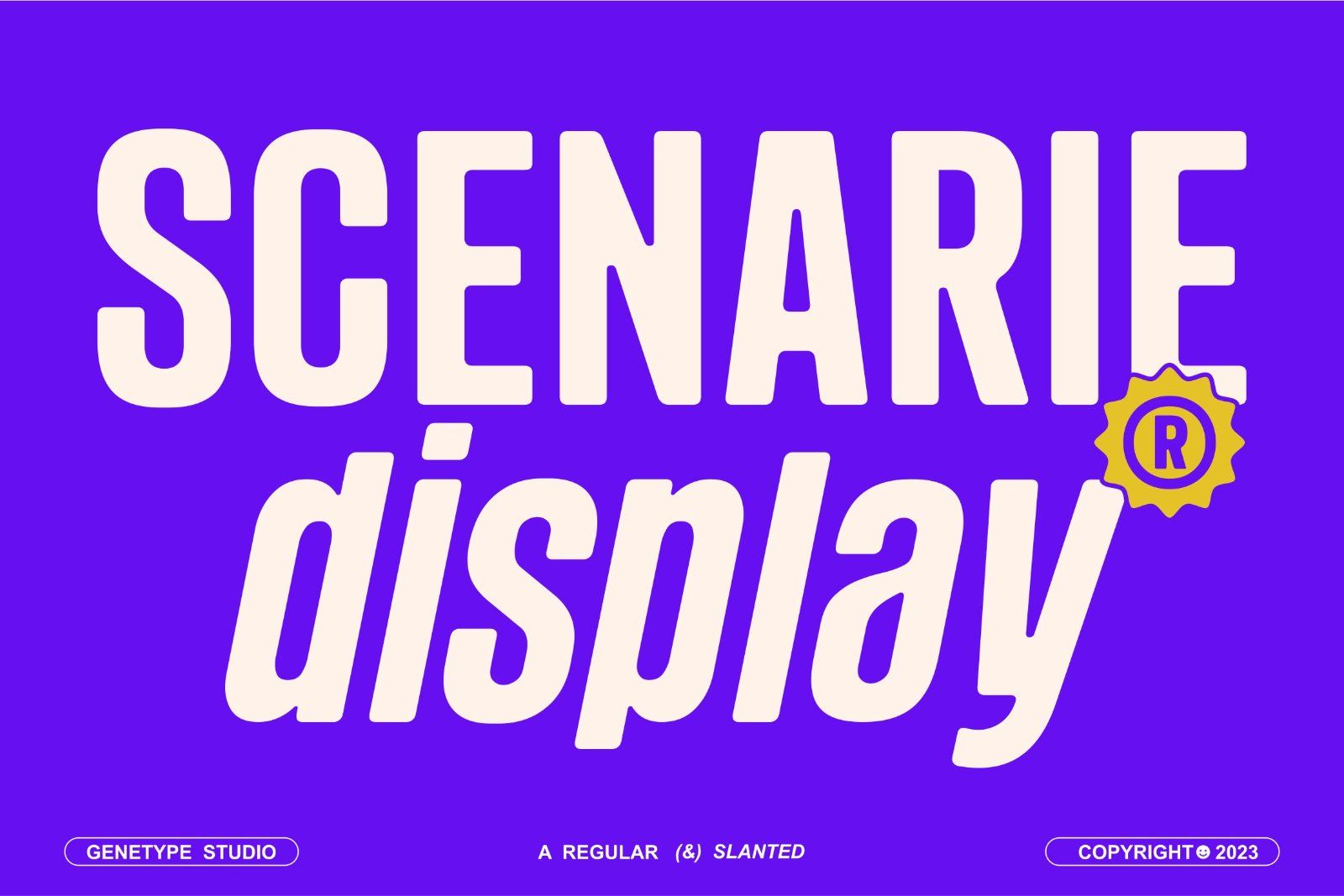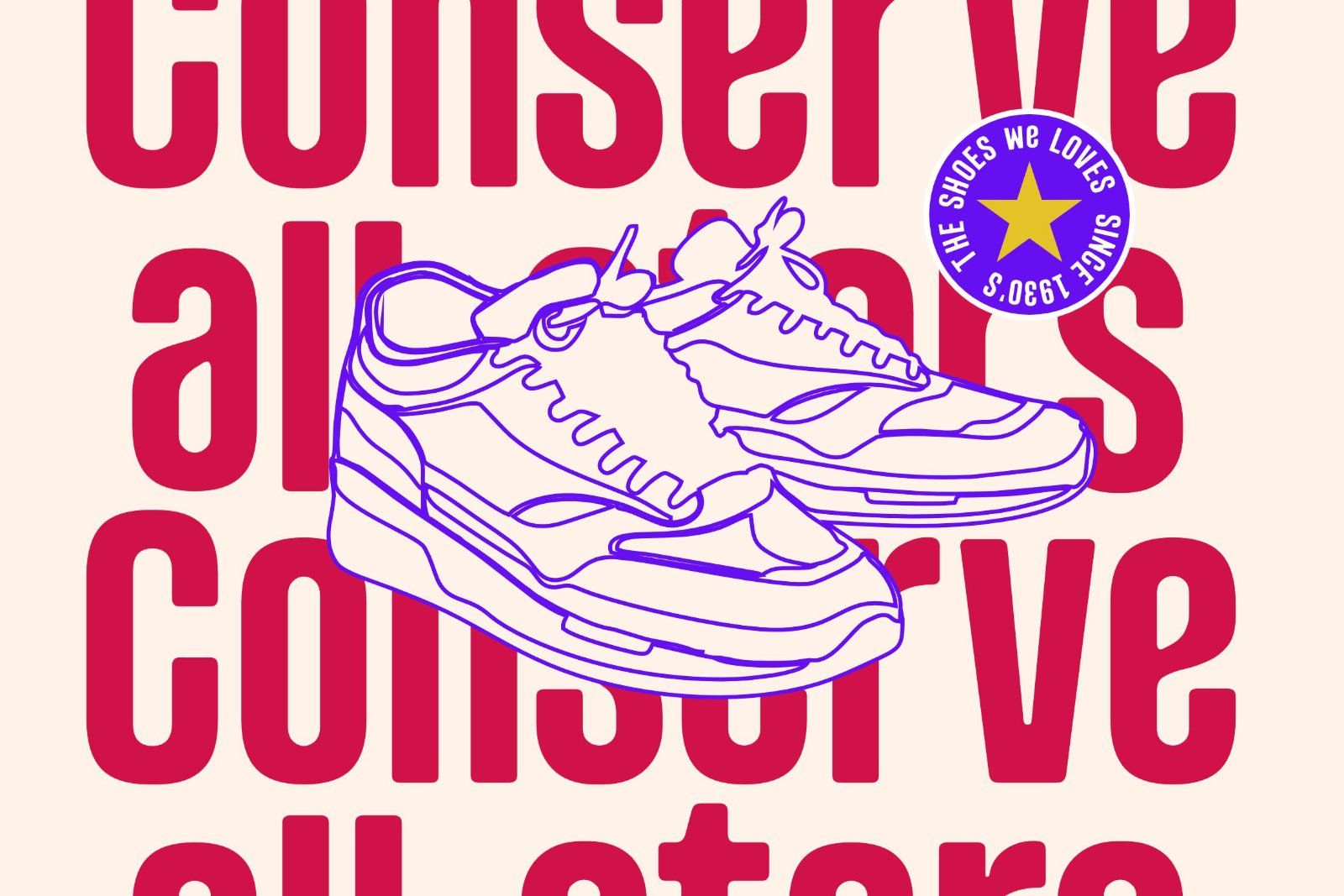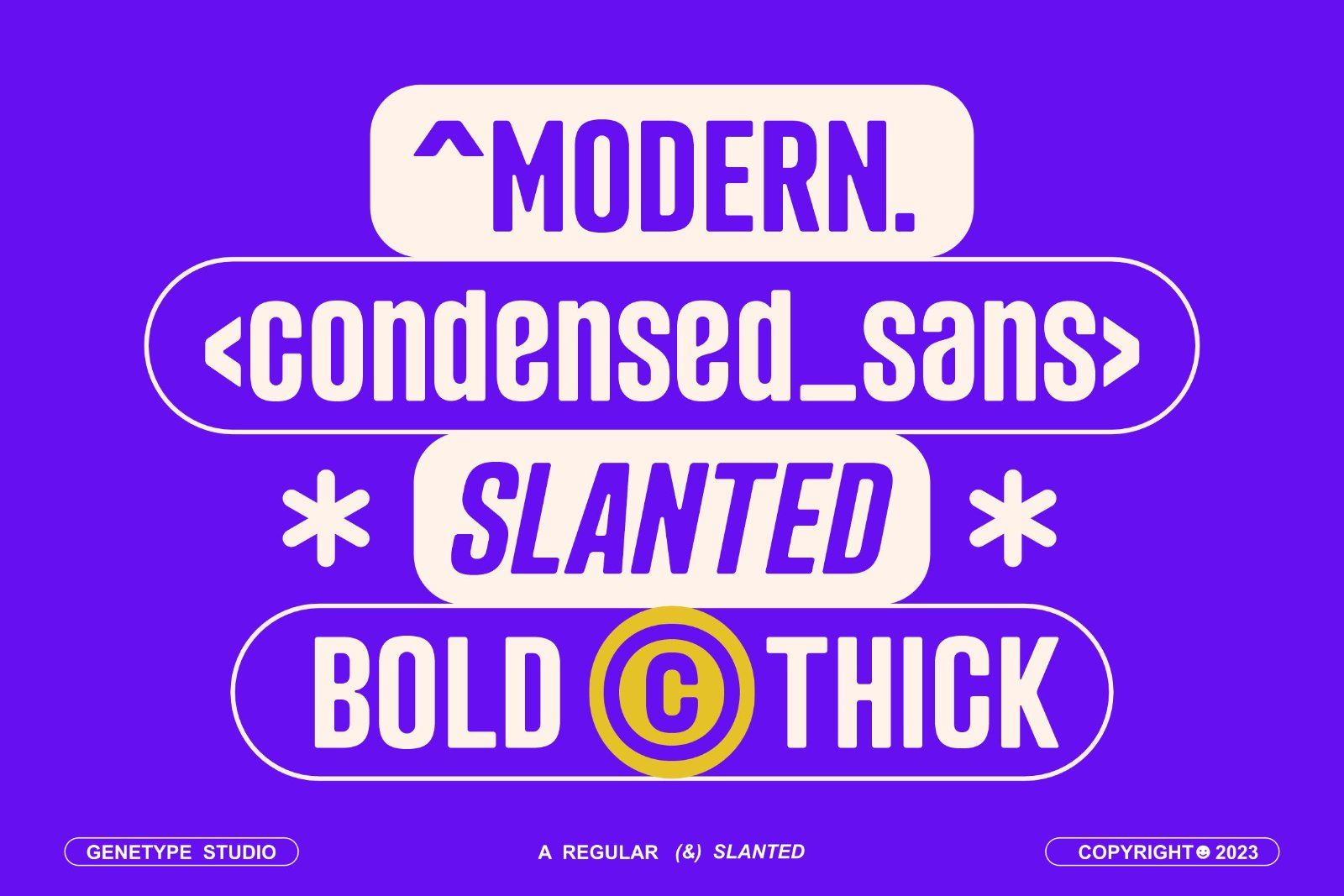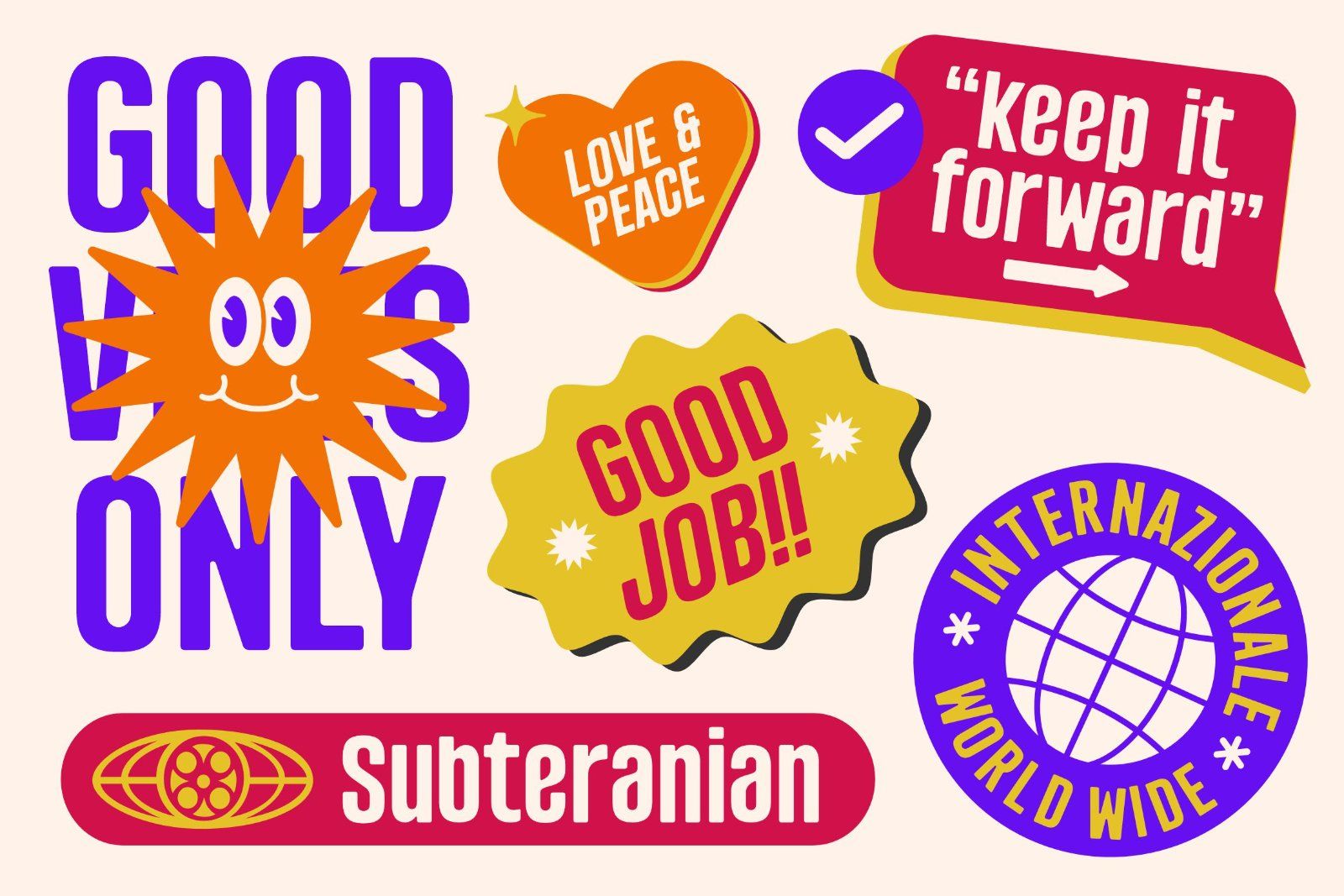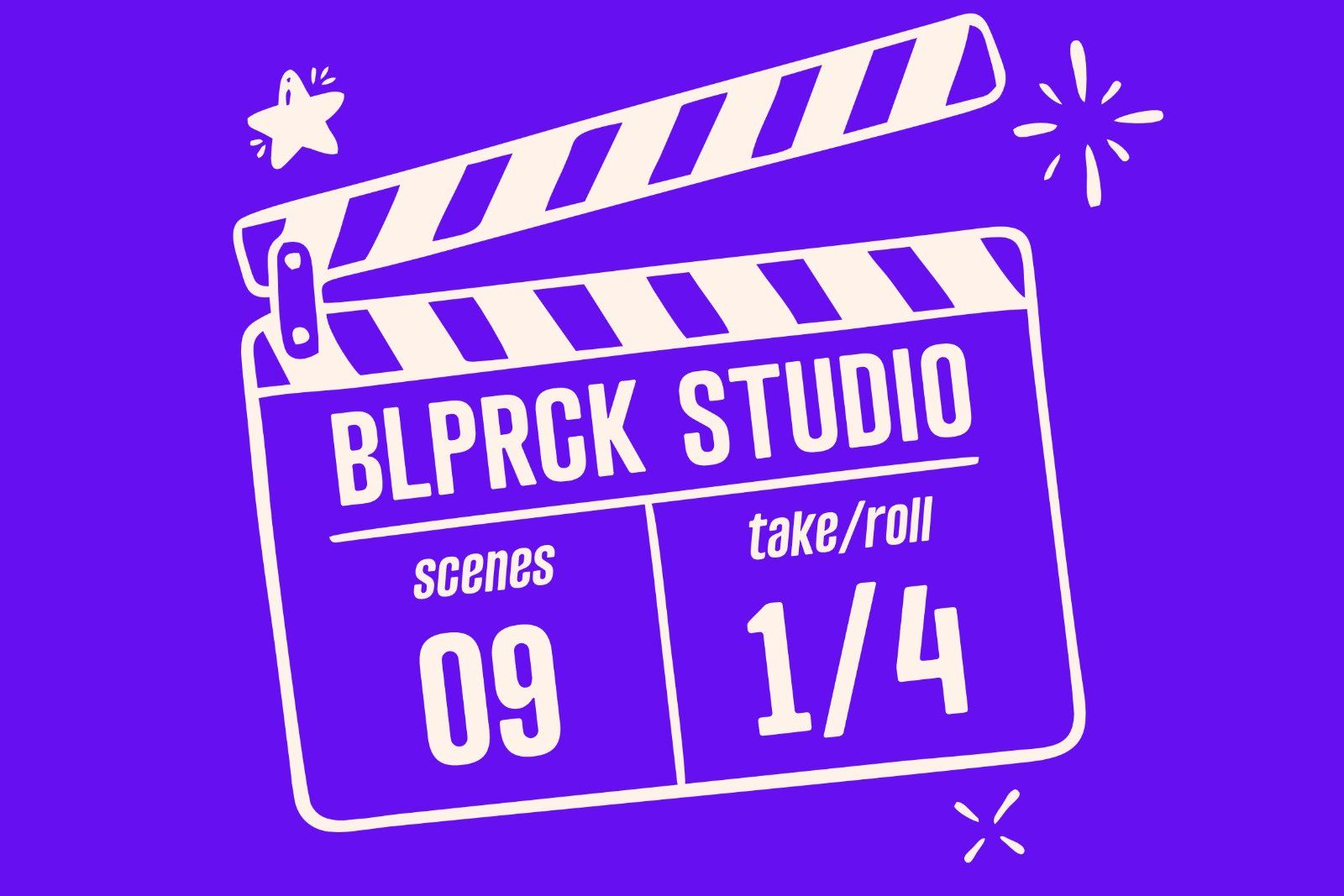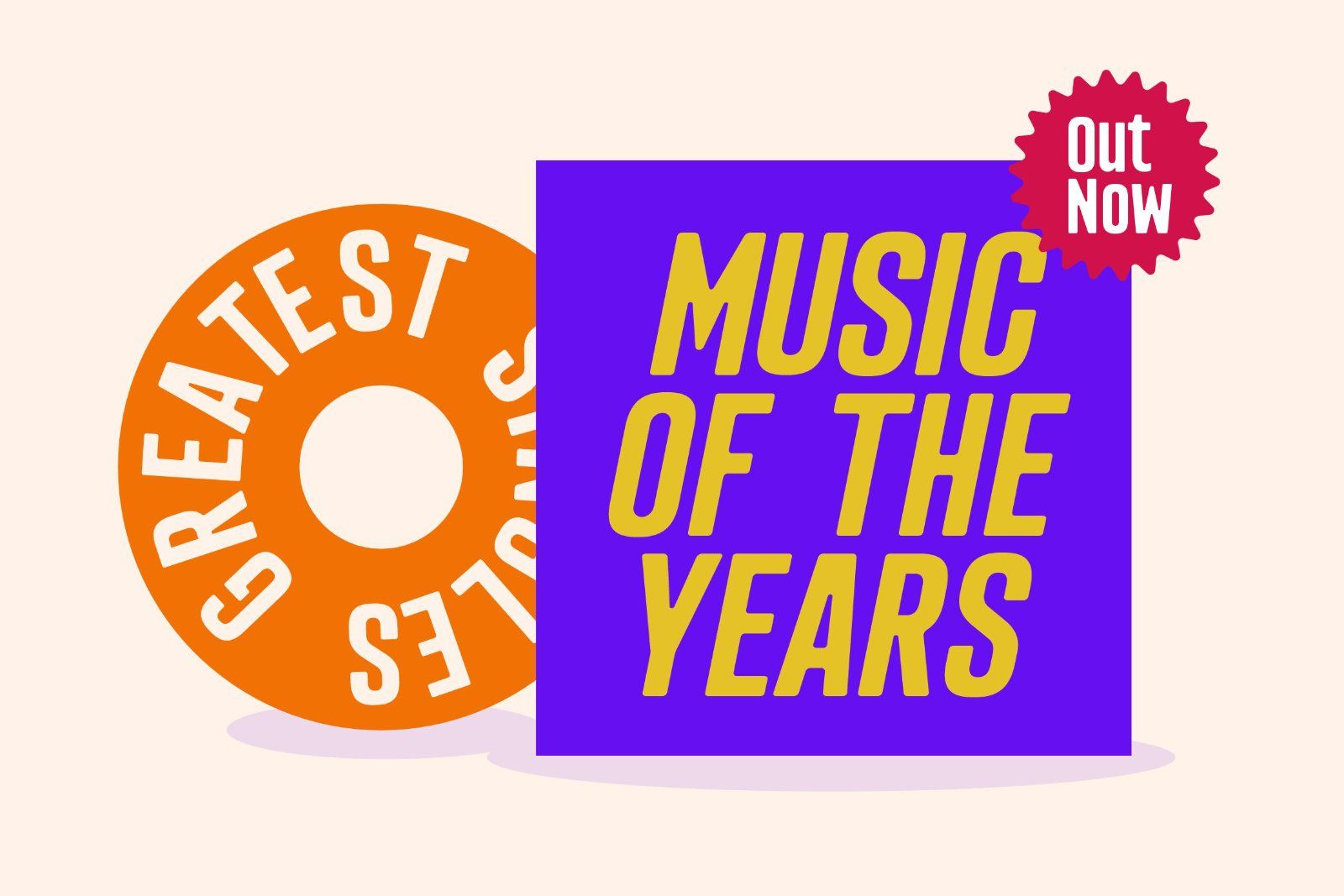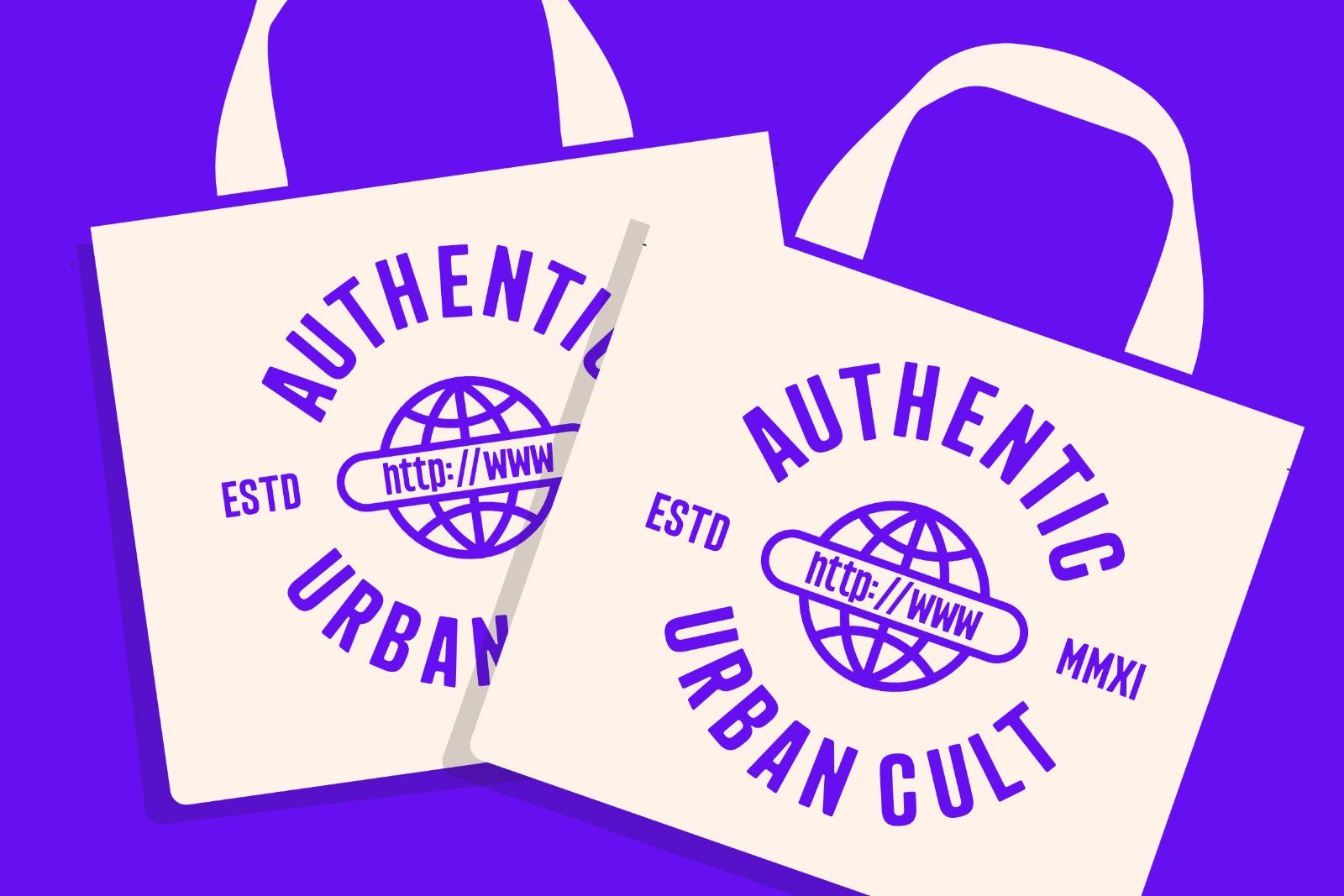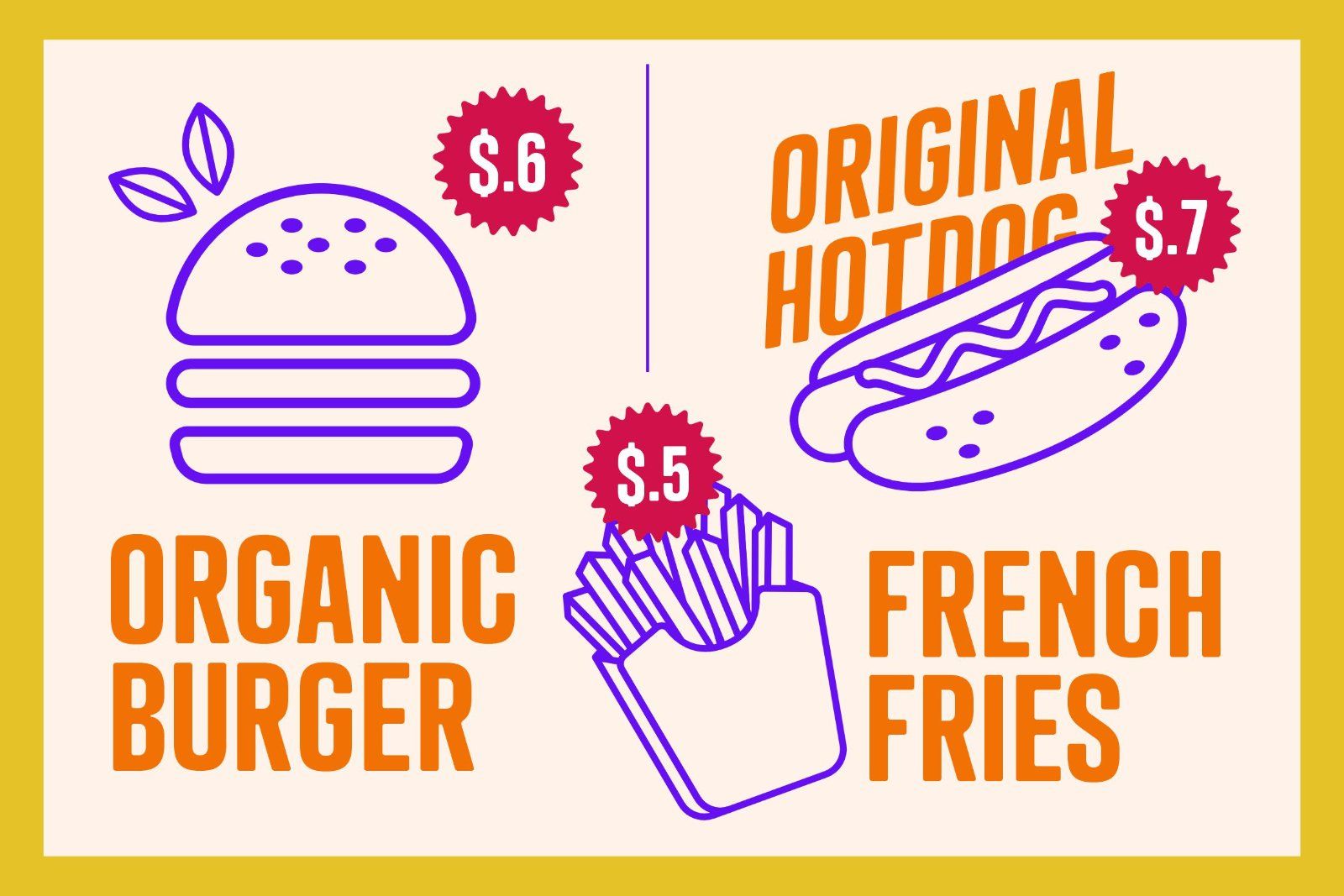
Introducing Scenarie Display Typeface
Unveil the art of sophistication with Scenarie Display – a condensed sans serif font meticulously designed to streamline your designs. From sleek logos to space-efficient layouts, Scenarie Display offers a modern and refined touch. Embrace the power of condensed typography – explore Scenarie Display and redefine your design possibilities.
Scenarie consists of 2 fonts. regular and slanted